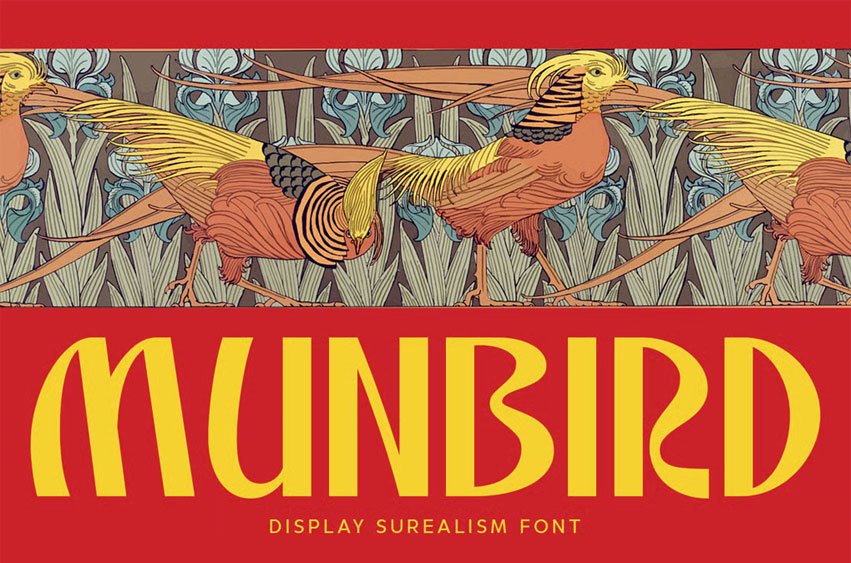
Munbird Font is a Surrealist display font that elegantly merges artistic, flowing curves with the confident structure of a classic display typeface. It evokes a timeless sophistication through its balanced, clean lines and decisive proportions.
The font maintains a striking, yet understated presence, making it ideal for impactful applications like headlines, branding, and editorial design. “Munbird” communicates refinement without being overly decorative—a poised, approachable, and modern tribute to vintage aesthetic charm.